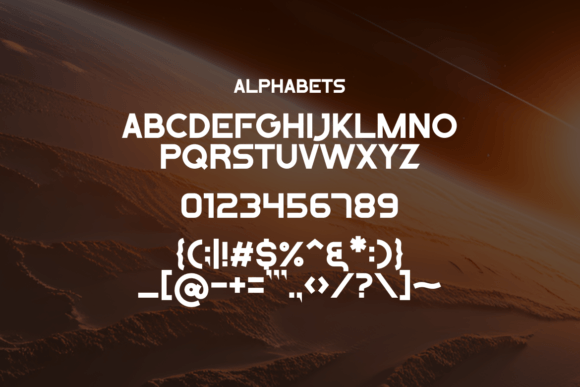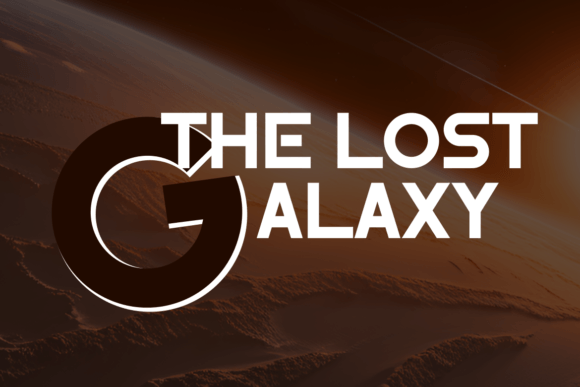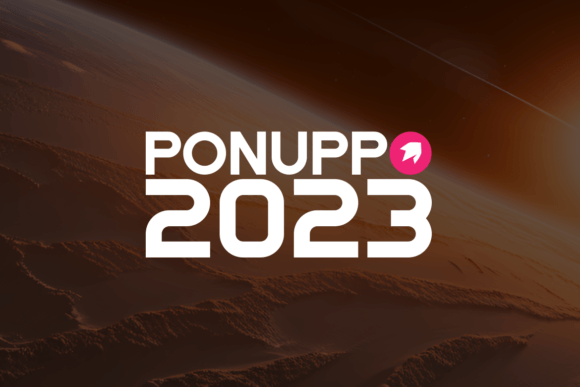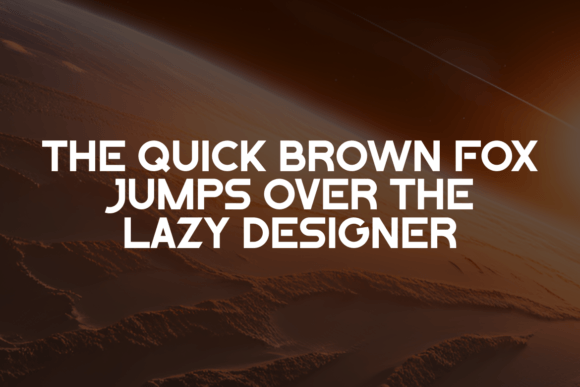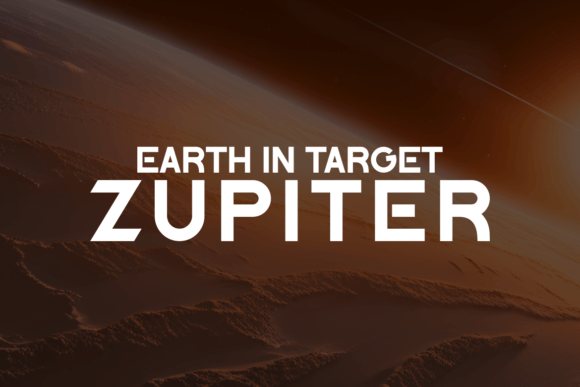
Introduction to Mazegin Font
Have you ever stared at a blank design canvas, feeling stuck and unsure where to begin? That’s where the perfect font can be a game-changer. For designers, a high-quality font can elevate a project from meh to mesmerizing, and that’s exactly what the Mazegin Font delivers.
This elegant and modern sans serif font is a design resource that’s hard to resist. With its minimalist and clean vibe, it’s the perfect addition to any creative project. Whether you’re designing book covers, magazine layouts, social media posts, or invitations, the Mazegin Font is sure to impress. And the best part? It’s available for a free download, making it an accessible choice for designers of all levels.
What sets the Mazegin Font apart is its versatility and high-quality design. Its transparent background makes it easy to work with, and its clean lines ensure that your design stands out. Whether you’re a seasoned pro or just starting out, the Mazegin Font is a valuable resource that’s sure to become a go-to choice for your next creative project.
Key Features of Mazegin Font
- High-quality, professional font suitable for various creative projects.
- Comes with a transparent background, allowing for easy integration into various design elements.
- Includes a large character set with multiple language support, making it a versatile font for various design needs.
- Perfect for use in graphic design, digital art, and other creative projects that require a unique and stylish font.
Honest Review: Mazegin Font
I recently came across the Mazegin Font and I must say, it’s been a game-changer for my creative projects. This design resource offers a high quality, unique font that adds a touch of elegance to any project.
The font comes in a transparent background, which makes it super easy to use and customize. The Mazegin Font is perfect for designers who want to create a professional and modern look without breaking the bank.
Here are some things that work well: ✨ High quality design ✨ Unique style ✨ Free download
- Perfect for creative projects, such as logos, branding, and digital art
- Works well with a variety of design styles, from modern to vintage
- Easy to use and customize, even for beginners
One thing to keep in mind is that the Mazegin Font is a bit limited in terms of versatility. ⚠️ It’s not suitable for large-scale use, such as body text, and may require some extra formatting to get it to work properly.
Overall, I’m really impressed with the Mazegin Font and would highly recommend it to fellow designers. It’s a great addition to any design toolkit and is sure to elevate your creative projects.
The Mazegin Font is a high-quality design resource that can add a unique touch to your creative project. With its transparent background, it’s perfect for overlaying text or graphics on images.
Tips for Getting the Most Out of Mazegin Font
Experiment with different font sizes, colors, and combinations to create unique and eye-catching designs. You can also use the Mazegin Font in conjunction with other design elements to create a cohesive look.
The Mazegin Font is perfect for creative projects such as blog posts, social media graphics, and marketing materials. It’s also great for adding a touch of elegance to presentations and documents.
Q: Does the Mazegin Font have a transparent background?
No, the Mazegin Font does not have a transparent background. It’s a solid-colored font designed to be used on various backgrounds. However, you can use the font in conjunction with other design elements, such as images or graphics, to create a transparent or semi-transparent effect in your design projects.